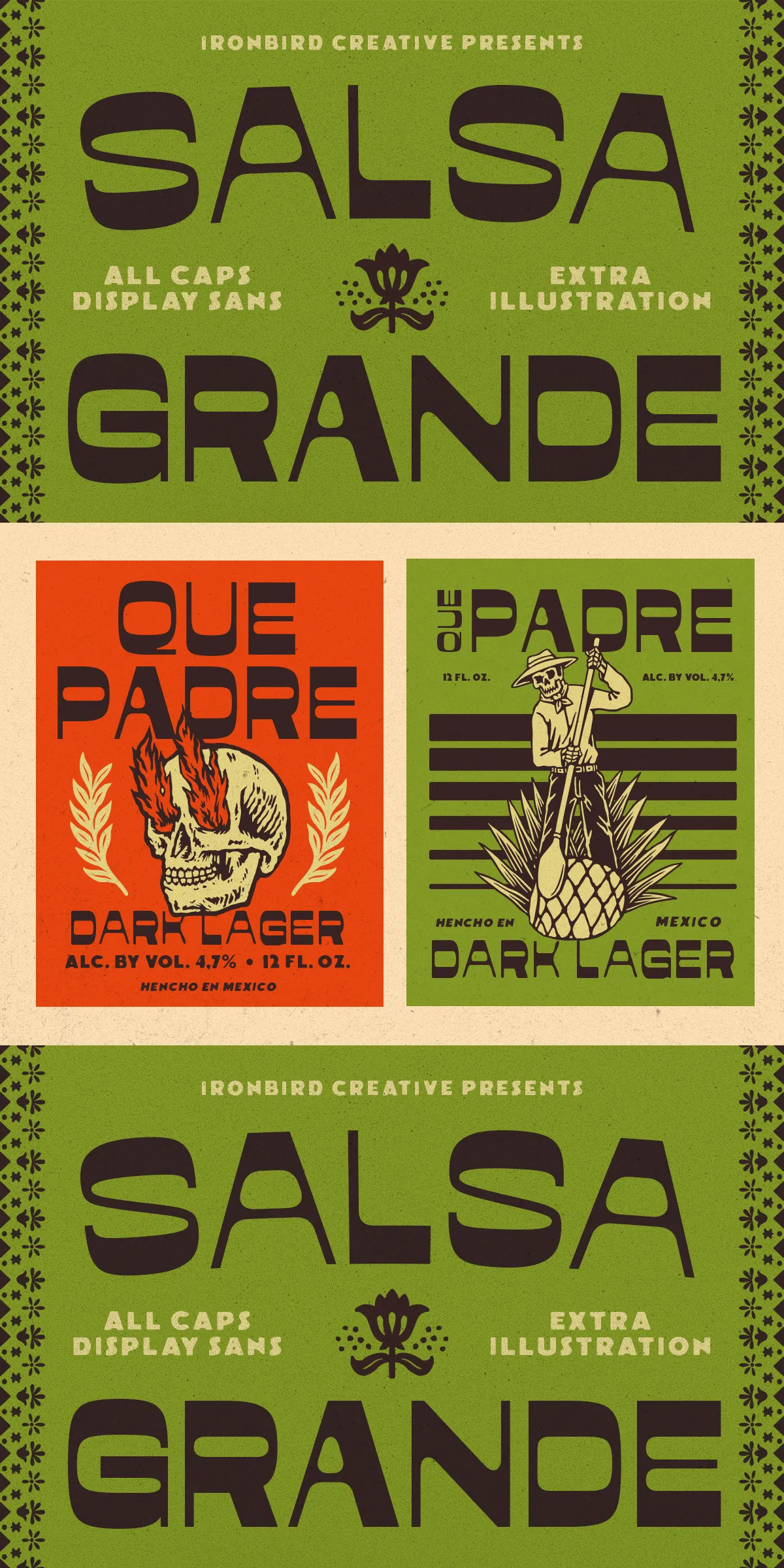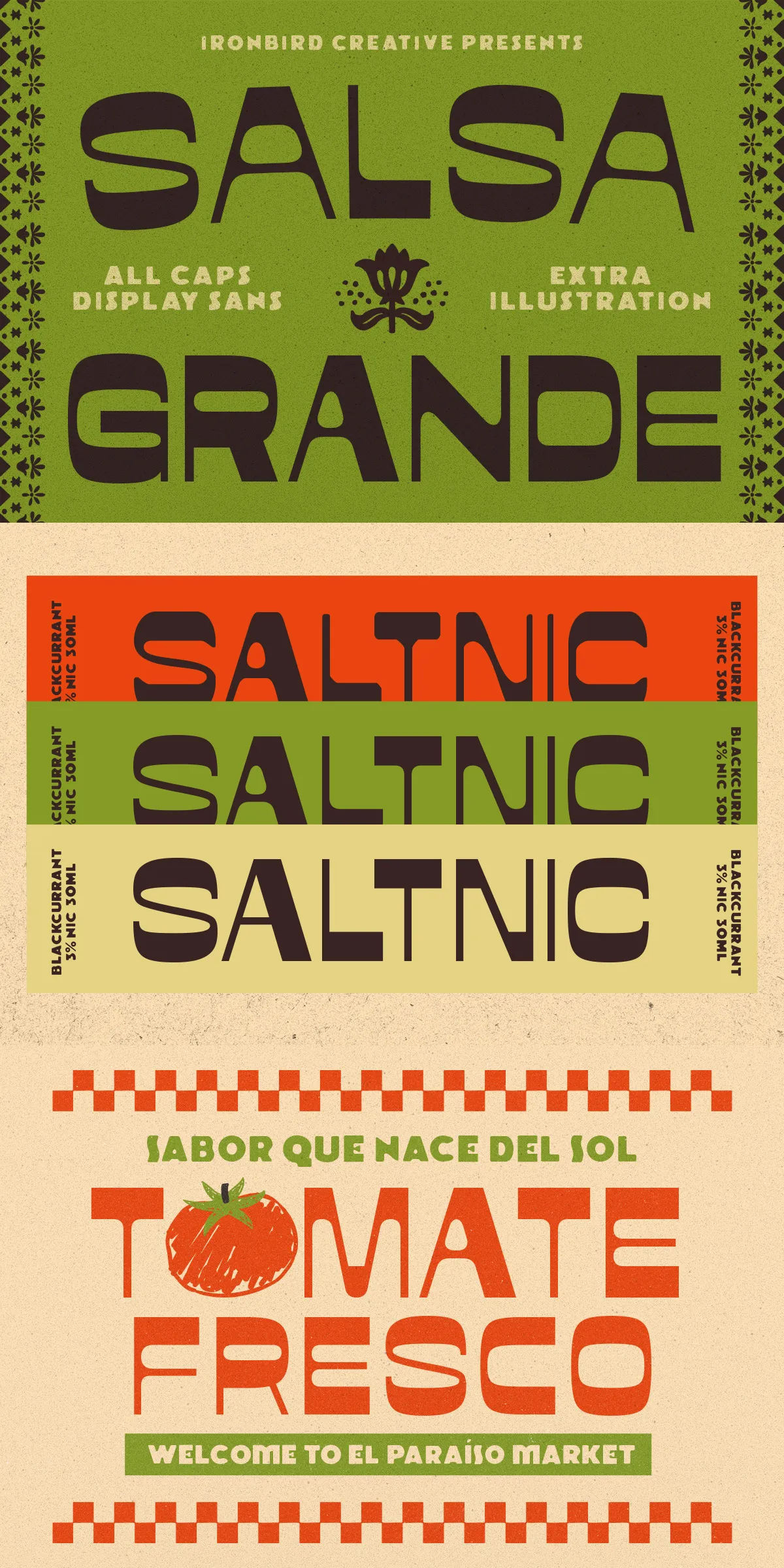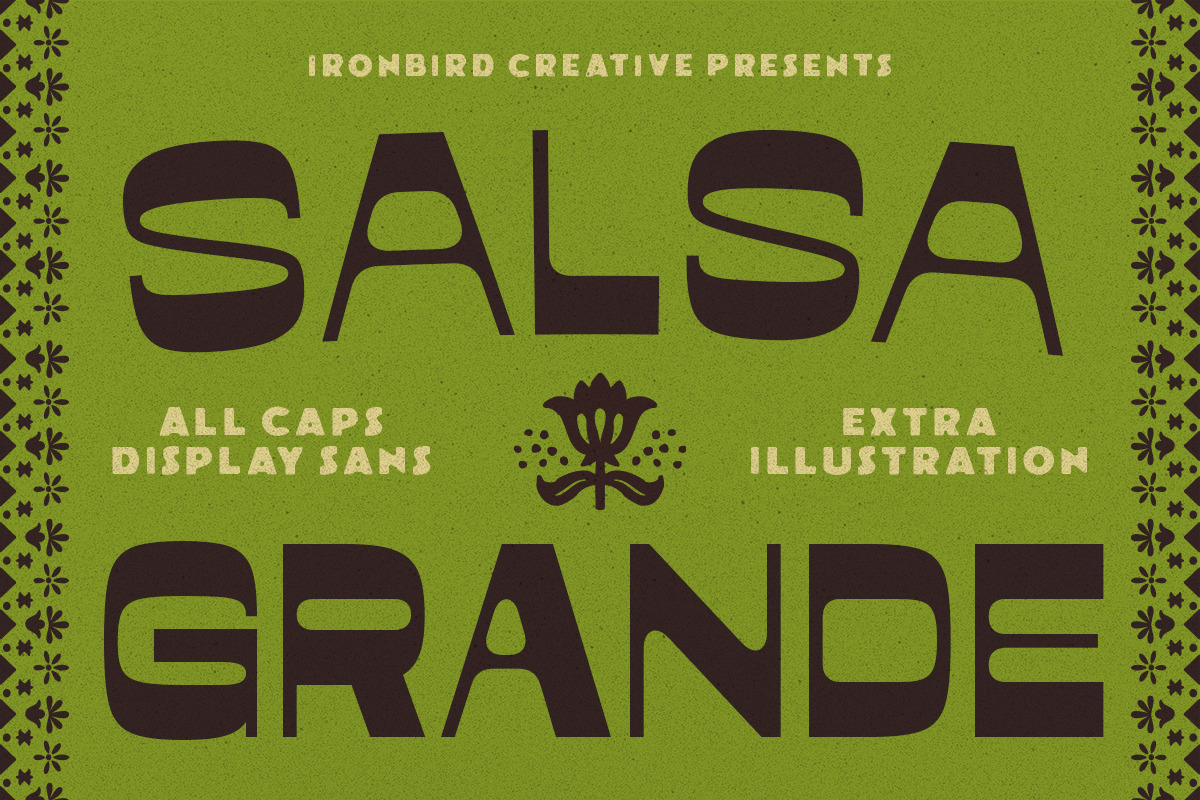
Get ready to infuse your creative projects with an undeniable burst of energy and a vibrant spirit with Salsa Grande. This is not just a font; it’s a celebration—a bold display sans-serif typeface meticulously crafted to bring the exhilarating essence of Mexican culture directly to your designs. With its captivating presence and dynamic personality, Salsa Grande is engineered to make every headline, every banner, and every piece of branding utterly unforgettable.
Forget bland, uninspired typography. Salsa Grande steps onto the stage with confidence, offering a robust and engaging aesthetic that instantly grabs attention. Whether you’re aiming for a playful vibe or a powerful statement, this font delivers, ensuring your message is not just seen but felt, resonating with a lively, festive undertone.
A Trio of Styles, A World of Possibilities: Discover Salsa Grande’s Versatility
Salsa Grande goes beyond a single look, offering a versatile collection designed to meet every creative need. Each style is a masterclass in strong, readable design, while maintaining its unique character:
- Salsa Grande Regular: The quintessential choice for clear, impactful statements. It’s the sturdy foundation that brings balance and boldness to any layout.
- Salsa Grande Variant: Inject a distinct touch of artistic flair. This variant adds subtle yet striking modifications, perfect for when you want to elevate your design with a unique twist.
- Salsa Grande Inked: Embrace a raw, authentic, and slightly gritty texture reminiscent of hand-printed posters and street art. This style adds depth and a tactile quality that digital fonts often lack.
But the party doesn’t stop there! Each of these powerful styles—Regular, Variant, and Inked—is also available in a slanted version. This dynamic addition allows you to convey movement, speed, and an extra layer of energetic charm, perfect for designs that need to convey action or a sense of playful urgency. From album covers to event promotions, the slanted options provide an extra dimension of visual excitement.
Beyond the Type: Bonus Hand-Drawn Illustrations to Spice Up Your Design
To truly bring the fiesta to life, Salsa Grande comes packed with an incredible bonus: a collection of hand-drawn illustrations. These perfectly complement the font’s aesthetic, providing you with readymade design elements that instantly elevate your projects. Imagine intricate borders, festive icons, and quirky embellishments that seamlessly integrate with Salsa Grande, creating cohesive and visually rich compositions. These illustrations are provided in both AI (Adobe Illustrator) and EPS (Encapsulated PostScript) formats, ensuring maximum flexibility and scalability across all your design software.
Unlocking Creative Potential: Where Salsa Grande Shines
The applications for Salsa Grande are as vibrant and diverse as the font itself. Here’s where this typeface will truly transform your work:
- Event Promotions: Design unmissable posters, flyers, and social media graphics for concerts, festivals, and parties. Its bold presence guarantees attention.
- Restaurant & Bar Branding: Create lively menus, engaging signage, and unforgettable logos that capture an authentic, festive atmosphere.
- Product Packaging: Give your products a personality that pops on the shelves, from food and beverage labels to artisanal goods.
- Children’s Books & Educational Materials: Its playful yet readable nature makes it ideal for engaging young audiences.
- Apparel & Merchandise: Design t-shirts, hats, and accessories that exude a cool, casual, and energetic vibe.
- Social Media & Digital Content: Craft eye-catching posts, headers, and banners that stand out in crowded feeds.
Salsa Grande empowers you to break free from conventional typography and embrace a design language that is full of life and character. It’s the perfect tool for designers who want to create work that is not just seen, but experienced.
With Salsa Grande, you don’t just acquire a font—you gain a comprehensive design toolkit brimming with personality and creative potential. So go ahead, bring the fiesta to your next project and let Salsa Grande make your designs sing with joy and vitality!